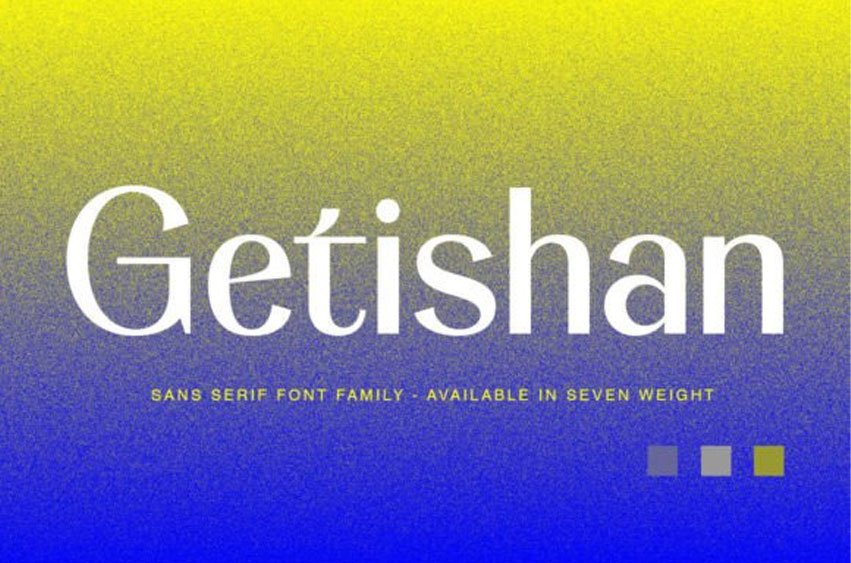
Getishan Font expands its use by providing weights ranging from thin to bold, the character increases as the font weight increases. Meanwhile, its thinner weight reduces contrast and optical correction to create a warm, soft look